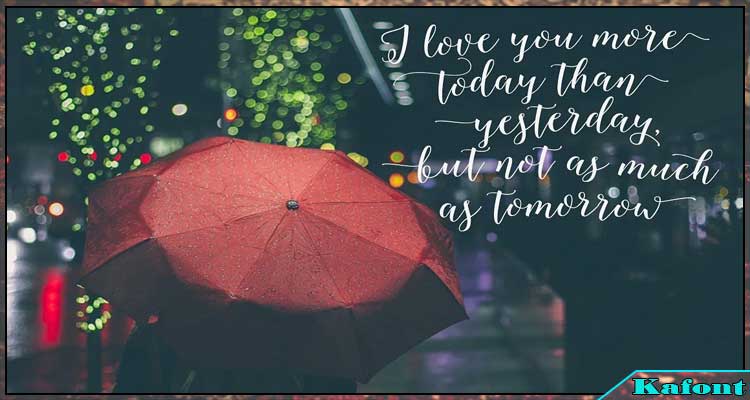
Octavia Script Calligraphy Font is a free typeface with a cute style. The font also gives your personal designs a modern look.
“Octavia Script” is a stylish and versatile script font created by the designer named Mytype Studio. This font is characterized by its elegant, flowing letterforms and distinctive flourishes, making it suitable for a wide range of design projects.
With its graceful curves and smooth lines, Octavia Script exudes a sense of sophistication and charm. It is perfect for use in branding, logo design, wedding invitations, signage, packaging, and more. Whether you’re crafting a romantic wedding announcement or designing a luxury brand identity, Octavia Script adds a touch of elegance and refinement to any project.
One of the key features of Octavia Script is its extensive set of stylistic alternates, ligatures, and swashes, allowing you to customize and enhance your designs with ease. These decorative elements can be used to add flair and personality to your typography, creating visually stunning compositions that stand out from the crowd.
Whether you’re a professional designer or a hobbyist, Octavia Script offers the perfect combination of beauty and functionality. Its timeless appeal and versatility make it a valuable addition to any designer’s toolkit, allowing you to create captivating designs that leave a lasting impression.
There are not many calligraphy typefaces with both cute and modern styles. However, the font above is an exceptional case. It is a unique font style that is ready to suits all of your desires with lettering projects. Here is what it features:
- Discretionary Ligatures
- Stylistic Alternates
- Contextual Alternates
- Various Initial and Terminal Forms coming from Contextual swashes
Octavia Script Font should be used in many lettering projects such as logo, poster, book cover, greeting card, and more.